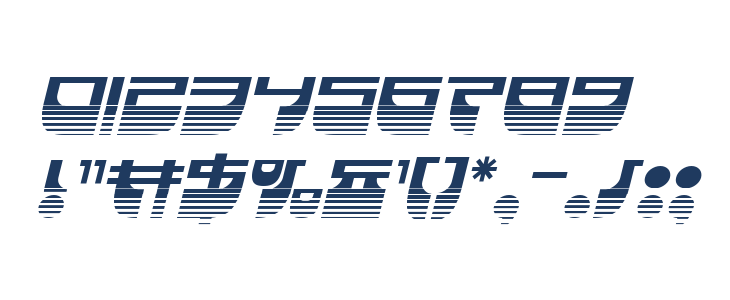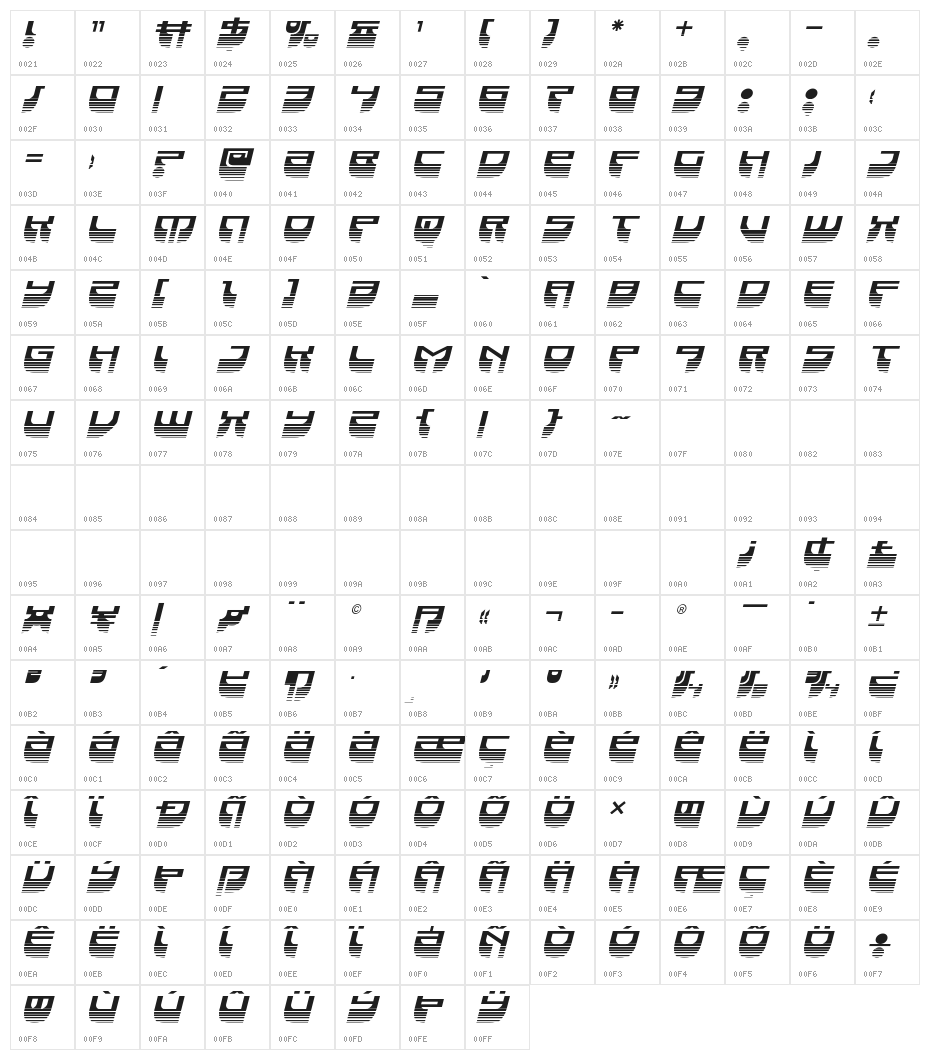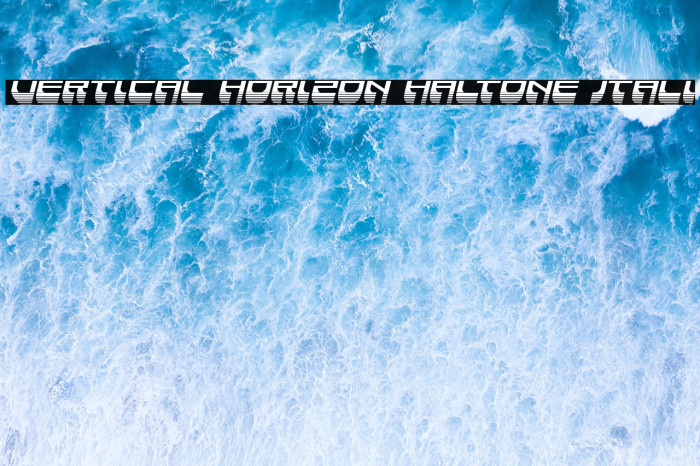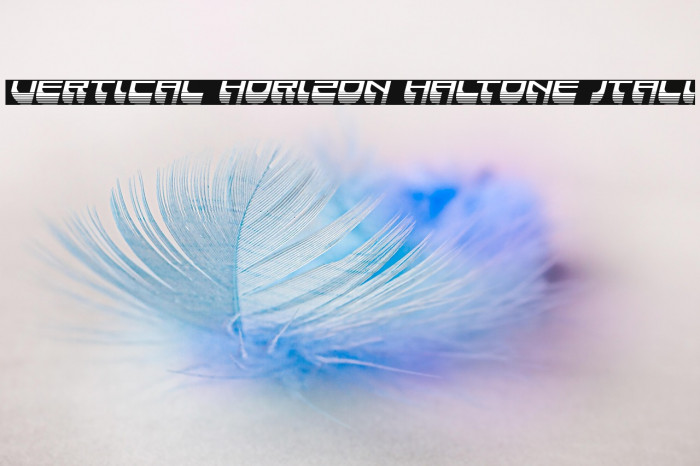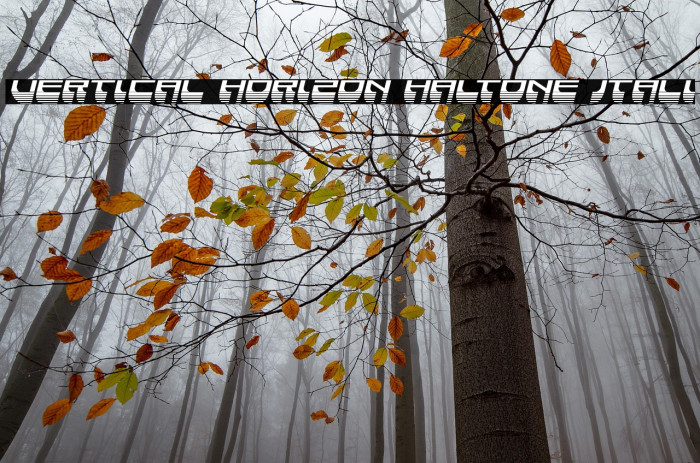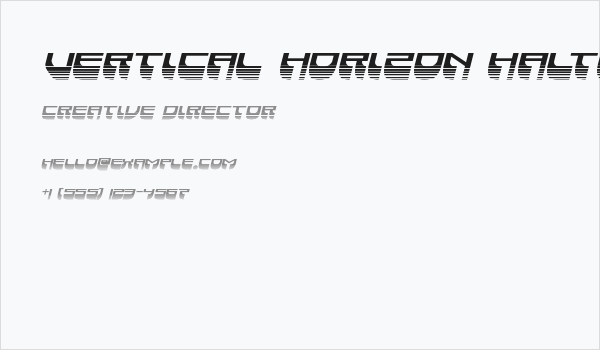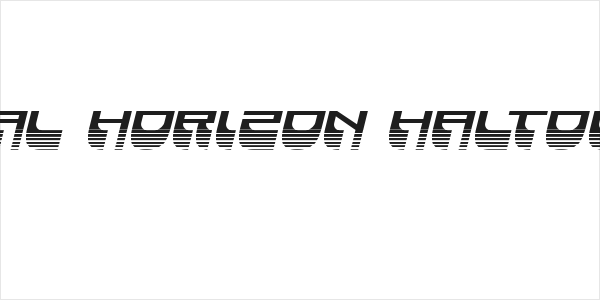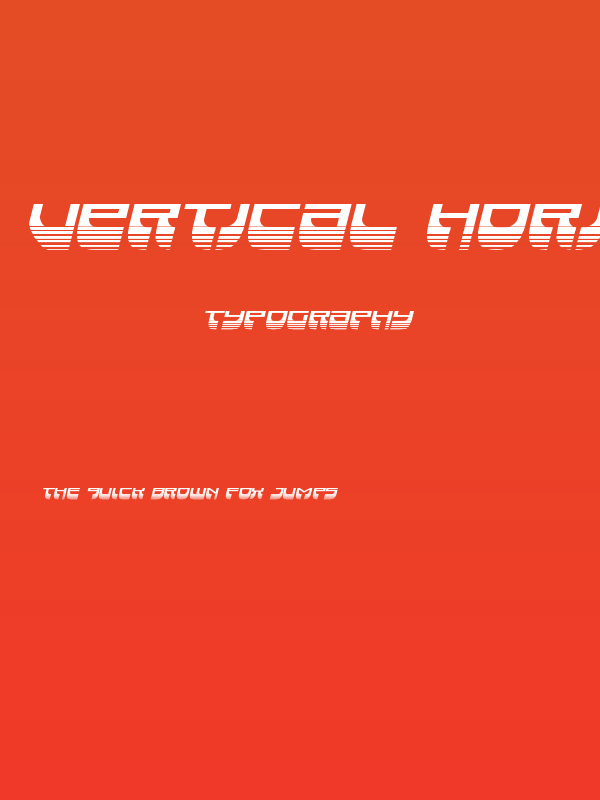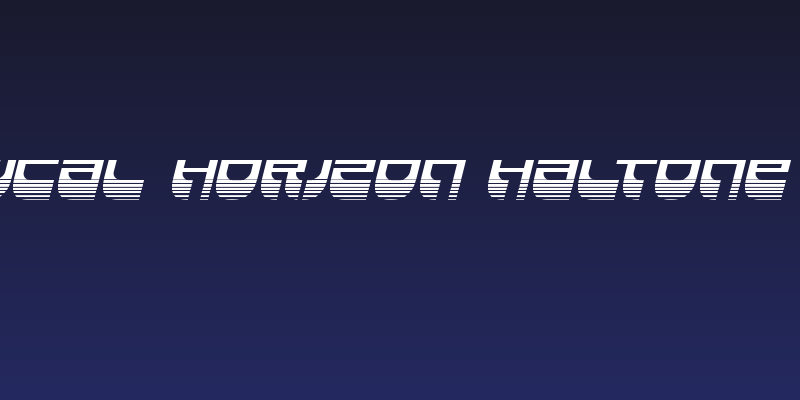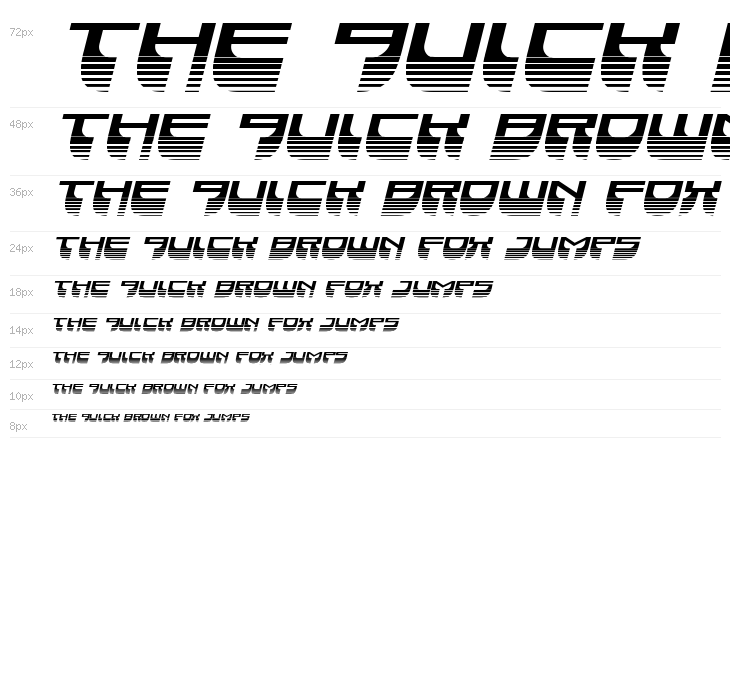
Vertical Horizon Haltone Itali Font
Vertical Horizon Haltone Itali Description
This font features a bold, futuristic design with a distinct horizontal line pattern running through each character. The uppercase and lowercase letters share a consistent style, emphasizing a sleek, modern aesthetic. The numerals and special characters maintain this theme, creating a cohesive look across all elements. The unique striping effect gives the font a dynamic, energetic feel, making it stand out in any design. Its geometric shapes and sharp angles contribute to a sense of movement and speed, ideal for projects that require a contemporary and innovative touch.
| Overall Style | Futuristic, Modern |
| Proposed Projects | Ideal for sci-fi themed designs, tech company logos, video game titles, and modern advertising campaigns. |